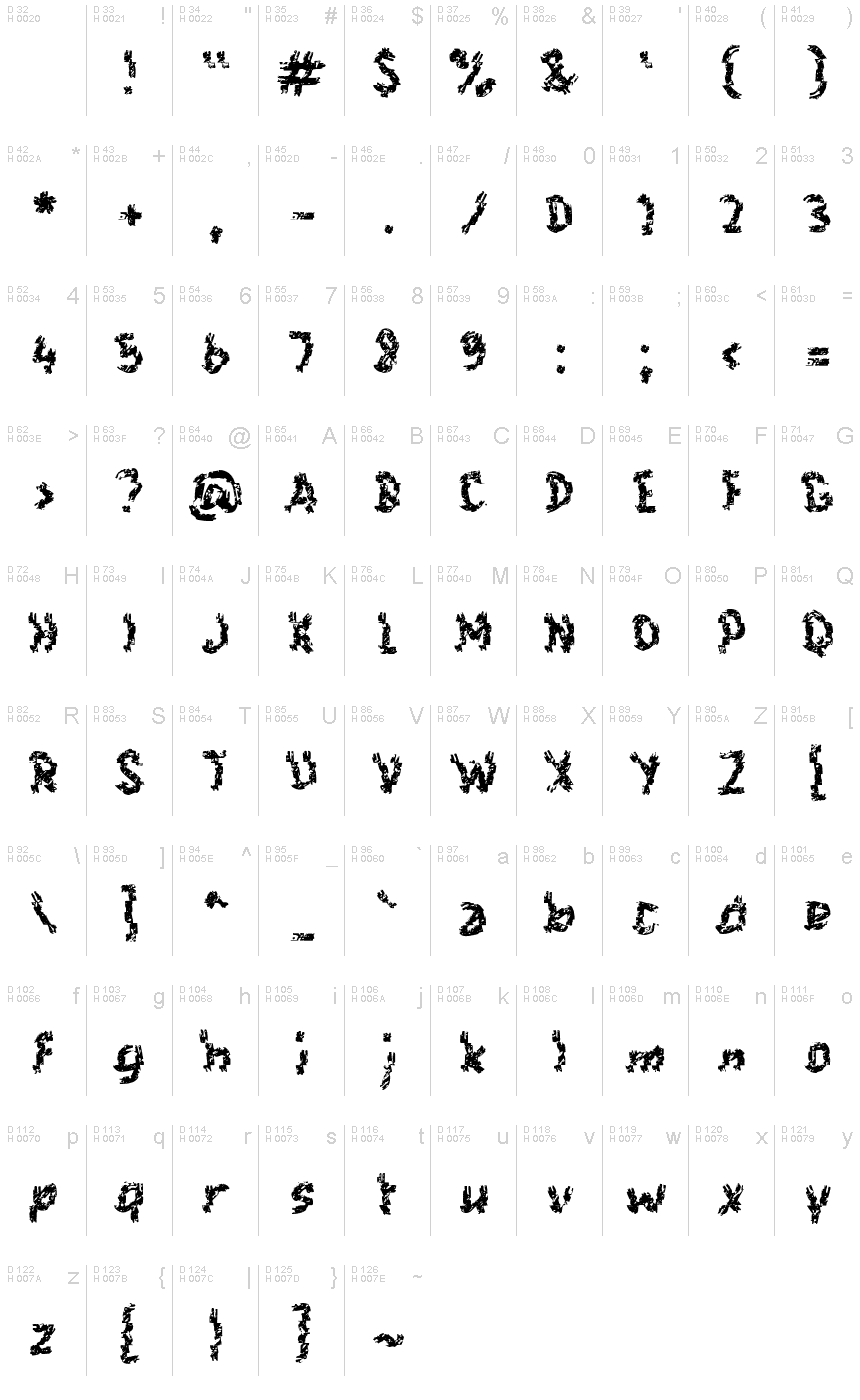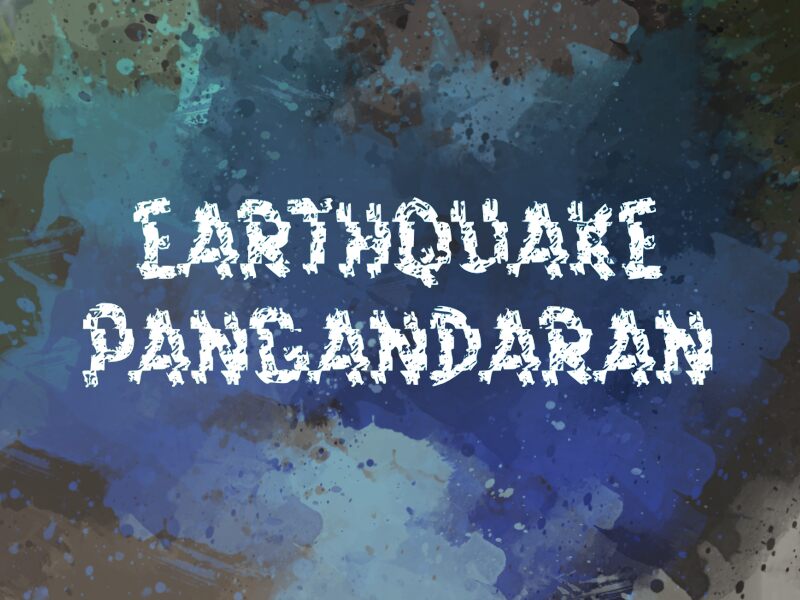
Earthquake Pangandaran
Earthquake Pangandaran, designed by wep, is a captivating display font that embodies the essence of chaos and unpredictability.
Its distorted style adds a unique touch to any creative project, making it ideal for eye-catching posters and album covers. The font's jagged edges and uneven spacing create an edgy atmosphere, perfect for rebellious fashion magazines or thrilling movie titles. With Earthquake Pangandaran, your designs will stand out from the crowd, leaving a lasting impression on viewers.